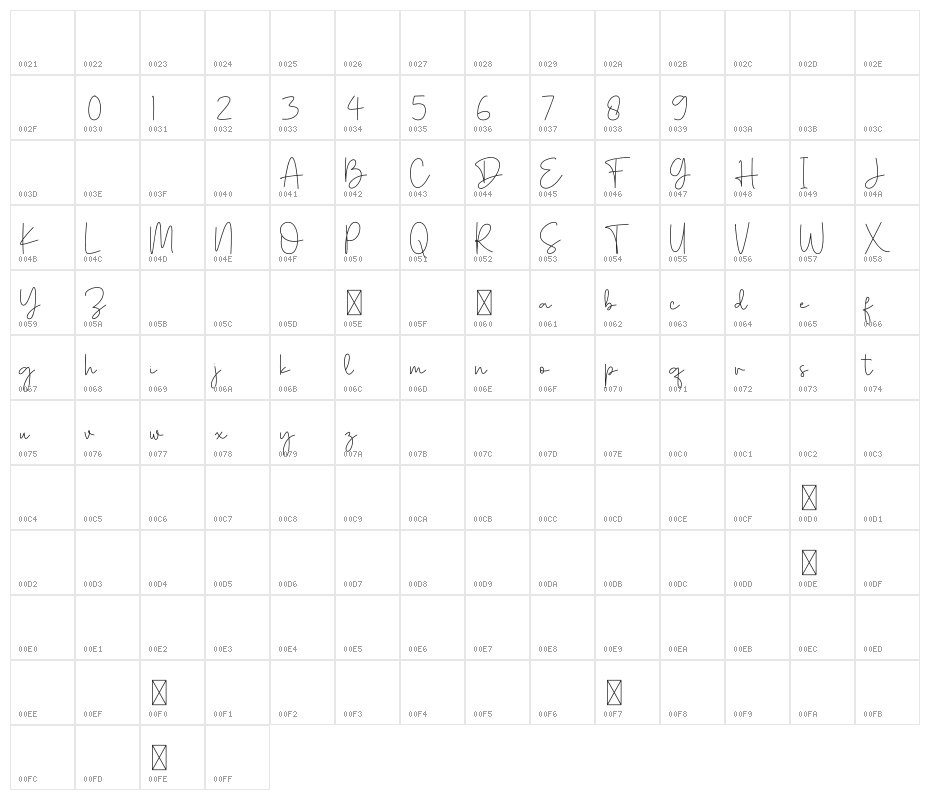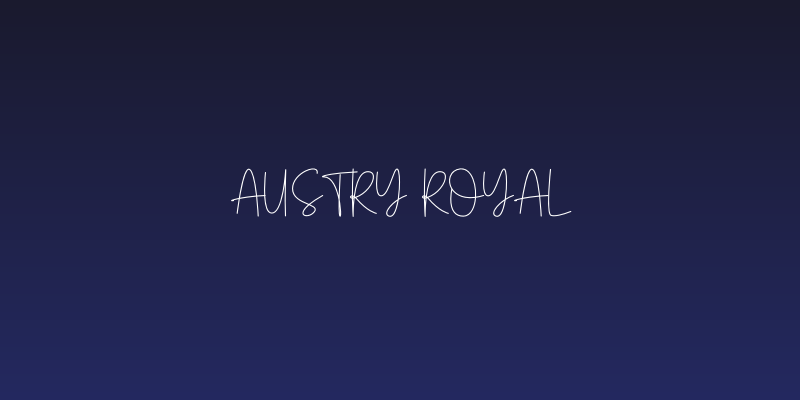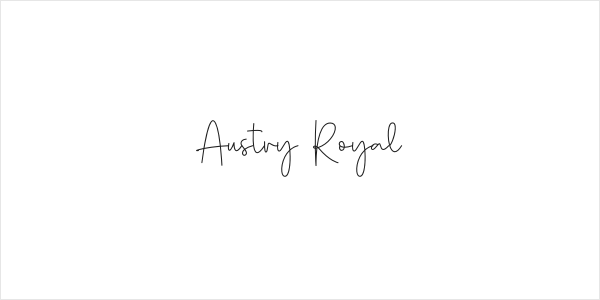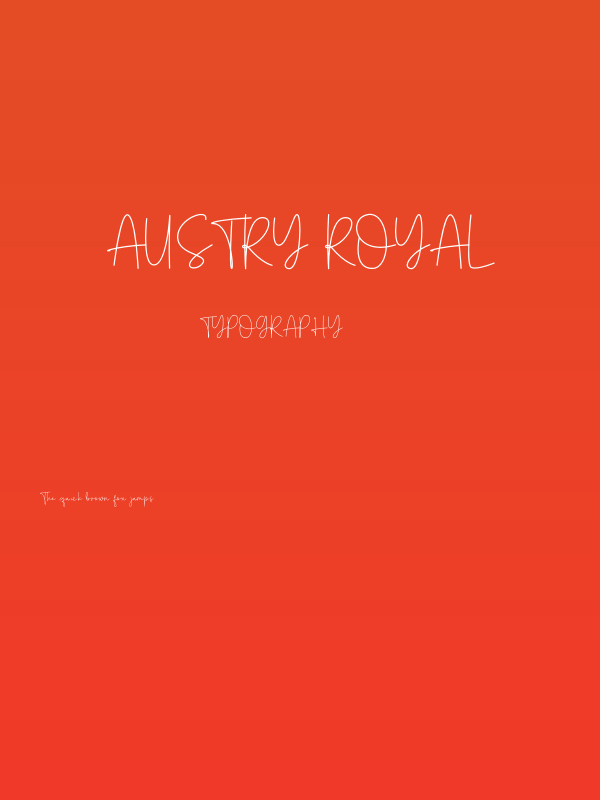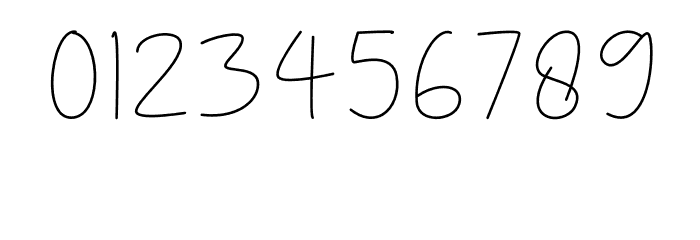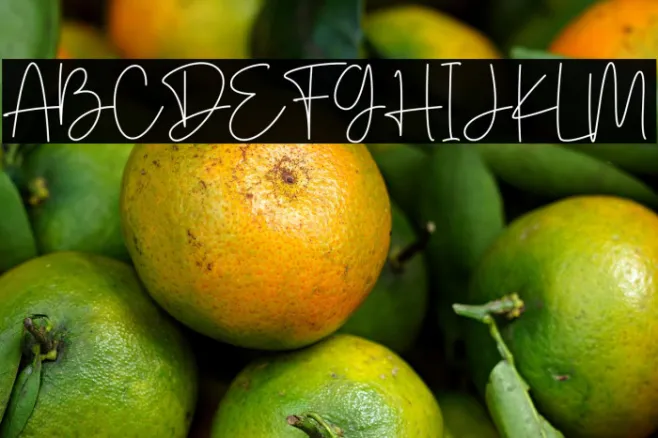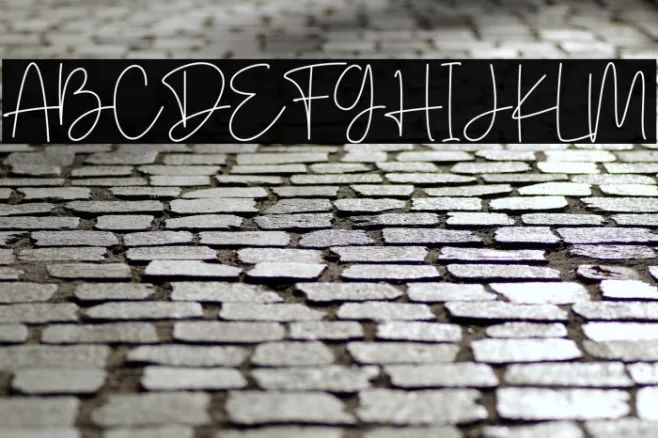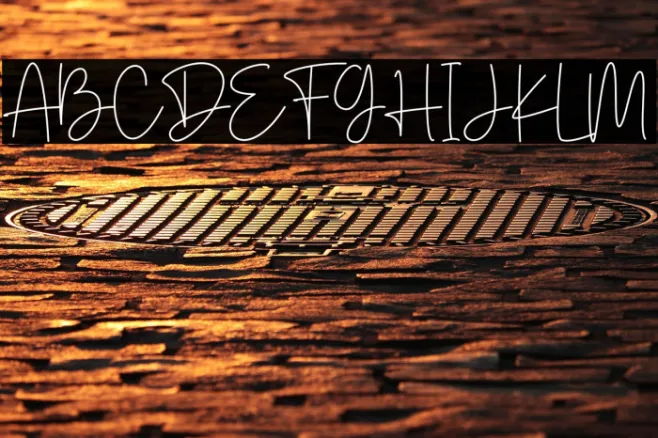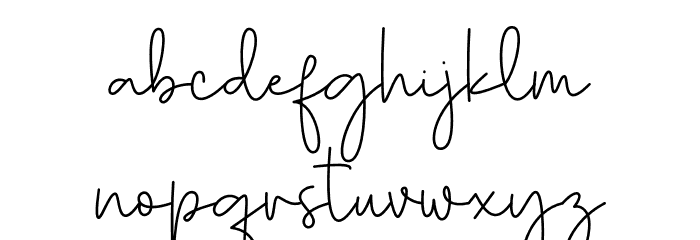
Austry Royal Font
Austry Royal Description
This font features a delicate and flowing handwritten style, characterized by its elegant and smooth curves. The uppercase letters are tall and narrow, with a slight slant that adds a touch of sophistication. The lowercase letters maintain a consistent fluidity, enhancing the overall graceful appearance. Numbers are clear and easy to read, complementing the alphabet with their rounded forms. The font's thin strokes and airy spacing give it a light and breezy feel, making it ideal for projects that require a personal and artistic touch.
| Overall Style | Elegant, Artistic |
| Use Case | Invitations, Personal branding, Artistic projects |
| Proposed Projects | Ideal for wedding invitations, greeting cards, personal branding, and artistic projects. |